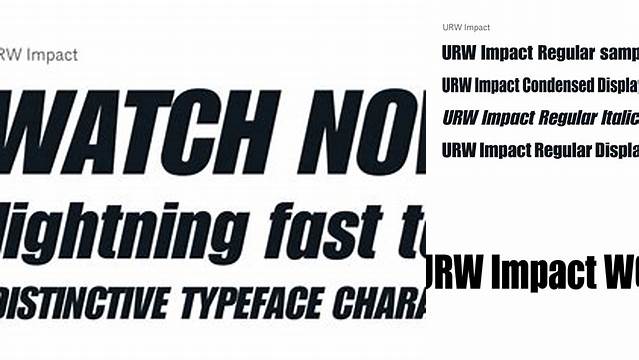
Hey guys! Ever wanted to add a serious punch to your designs? Well, you're in luck because we're diving headfirst into the world of the Impact URW font! Specifically, we're talking about the Impact URW Regular Italic font, and the best part? You can snag a free download! Let's get the lowdown on this bold typeface and how it can amp up your creative projects. Ready to explore? Let's jump right in!
Unleashing the Power of Impact URW: A Font for the Bold
Alright, let's talk about why the Impact URW font is such a big deal. This font isn't for the faint of heart; it's a statement maker. With its thick, condensed letterforms, Impact URW grabs attention immediately. Think of it as the font equivalent of a booming voice in a crowded room. It’s designed to be seen, to be read, and most importantly, to leave a lasting impression. It's a perfect choice when you want your message to stand out. Whether you're crafting eye-catching headlines, creating impactful posters, or designing logos that demand attention, Impact URW is a fantastic choice. The font's strong presence ensures that your text is the focal point, making your designs instantly memorable. Plus, the simple, yet effective design makes it versatile across various applications. From websites to print materials, Impact URW delivers clarity and impact. Let's not forget its historical significance. Originating from the late 20th century, Impact URW has become a staple in the design world. Its unique characteristics have made it a go-to for projects requiring boldness. Guys, let's face it, it’s a classic! And the Impact URW Regular Italic version we're discussing today takes it up a notch.
So, why choose Impact URW? The answer is simple: it works. Its bold, no-nonsense style is instantly recognizable and undeniably effective. This font has the power to transform a simple design into a commanding piece of art. Let’s not ignore its legibility. Despite its thickness, Impact URW remains surprisingly readable, even at smaller sizes. This is a crucial factor when it comes to headlines and titles. The bold structure of the font ensures your text stands out, while the letterforms are clean and clear, making it easy for the viewer to process the message quickly. Another key benefit is its versatility. From marketing materials to personal projects, Impact URW can be used in a wide range of contexts. Its bold personality makes it well-suited for everything from movie posters to online banners. This font is adaptable, meaning it can be incorporated across many different designs. And we cannot forget the impact on branding. If you're building a brand identity, Impact URW can be a foundational element. The font can help create a consistent visual language. Think about it: the same font used across all your materials, from your website to your social media posts. This uniformity builds brand recognition and trust. Lastly, the free download option makes it accessible to everyone. It levels the playing field, allowing both experienced designers and beginners to access a high-quality font without breaking the bank. This is a huge advantage, especially when starting out. So, yeah, Impact URW is a big deal, and you should definitely consider it.
Diving into Impact URW Regular Italic: The Stylish Twist
Alright, let’s zoom in on the Impact URW Regular Italic font. While the regular version of the font is a powerhouse, the italic version brings a certain stylish twist that adds a layer of sophistication. This is not just a tilted version of the original; it features carefully crafted letterforms that enhance readability while maintaining the font's core personality. The slant adds a sense of dynamism and movement, making your designs appear more engaging and visually appealing. Perfect for adding emphasis or flair to your text, Impact URW Regular Italic is great for a variety of projects. From headlines to quotes, it provides a stylish alternative to the standard bold. You can use it to create contrast within your designs and draw attention to specific words or phrases. This combination of the bold weight and italic style creates a striking effect. This is a great feature when you need to emphasize an important point, provide a different style, or just add visual interest. The italic style provides a smooth, elegant look. The effect is both professional and aesthetically pleasing. It can instantly give your text a modern, sophisticated look. This font is also a great tool for creating visual hierarchy in your designs. The italicized text can be used to highlight certain information, while the regular style can be used for the main body text. This clear distinction helps guide the reader through your content. By subtly changing the font style, you can keep your designs visually engaging without overwhelming them. Whether you're designing a website, a brochure, or a social media graphic, the Impact URW Regular Italic offers an excellent blend of style and function. Its versatility makes it a valuable asset for any designer, allowing you to experiment and create unique designs that truly stand out. The italic version's playful twist will definitely add to your designs.